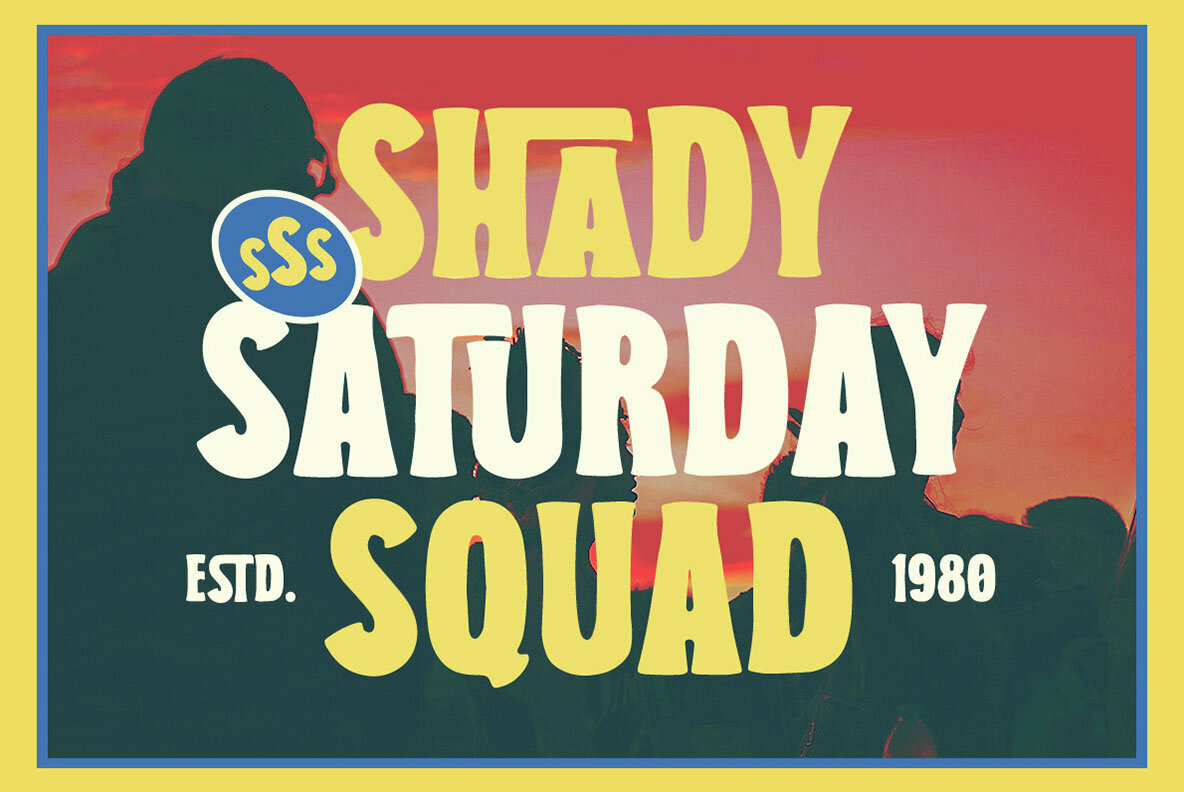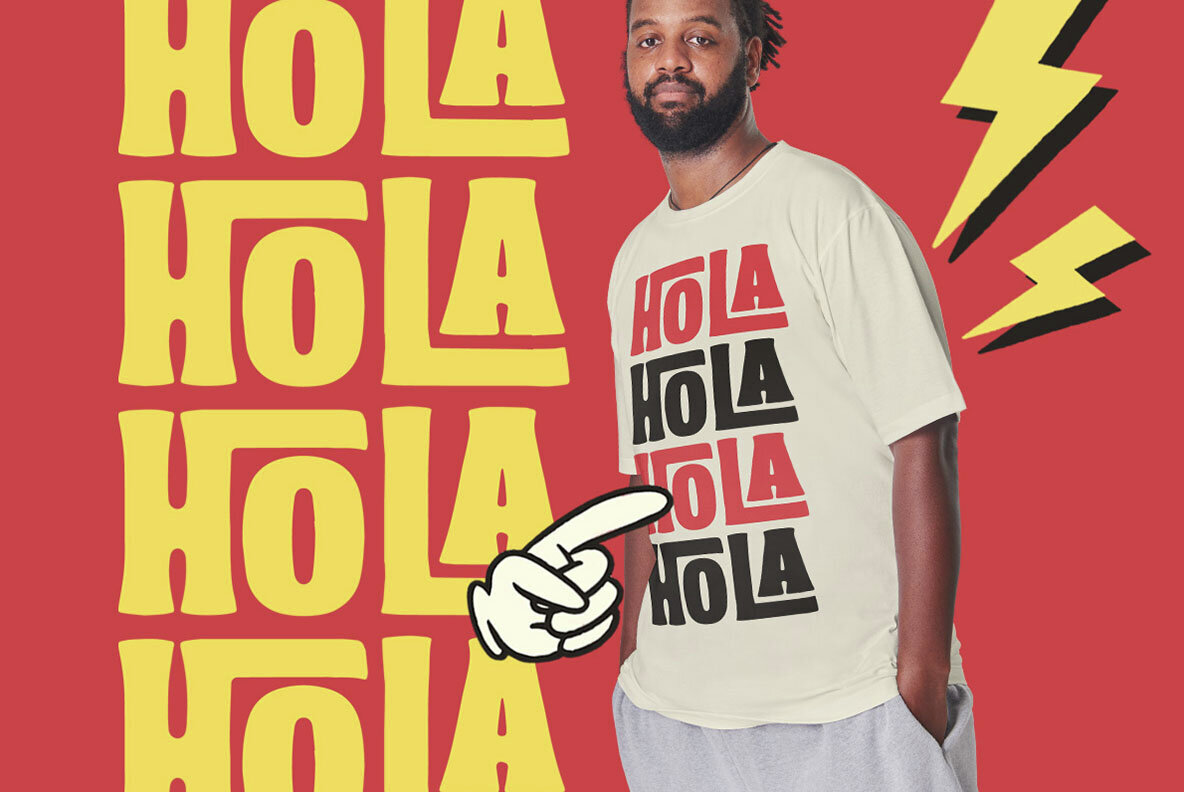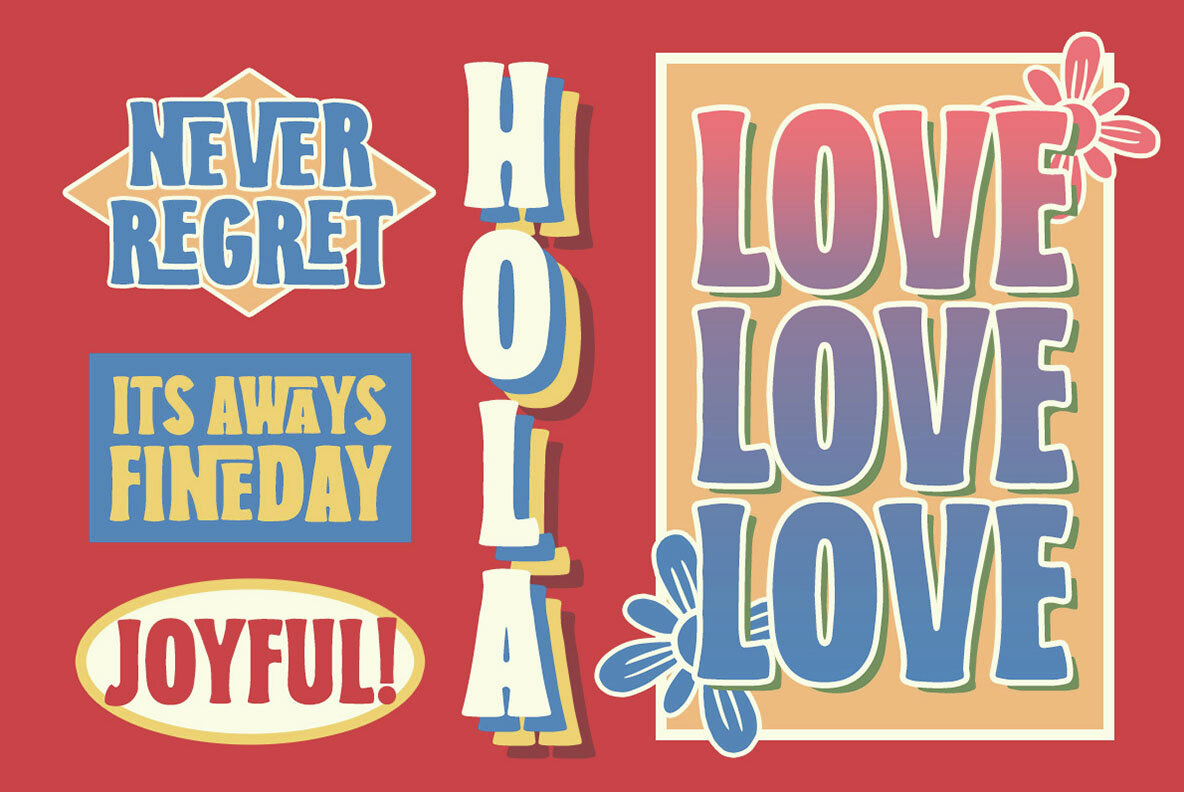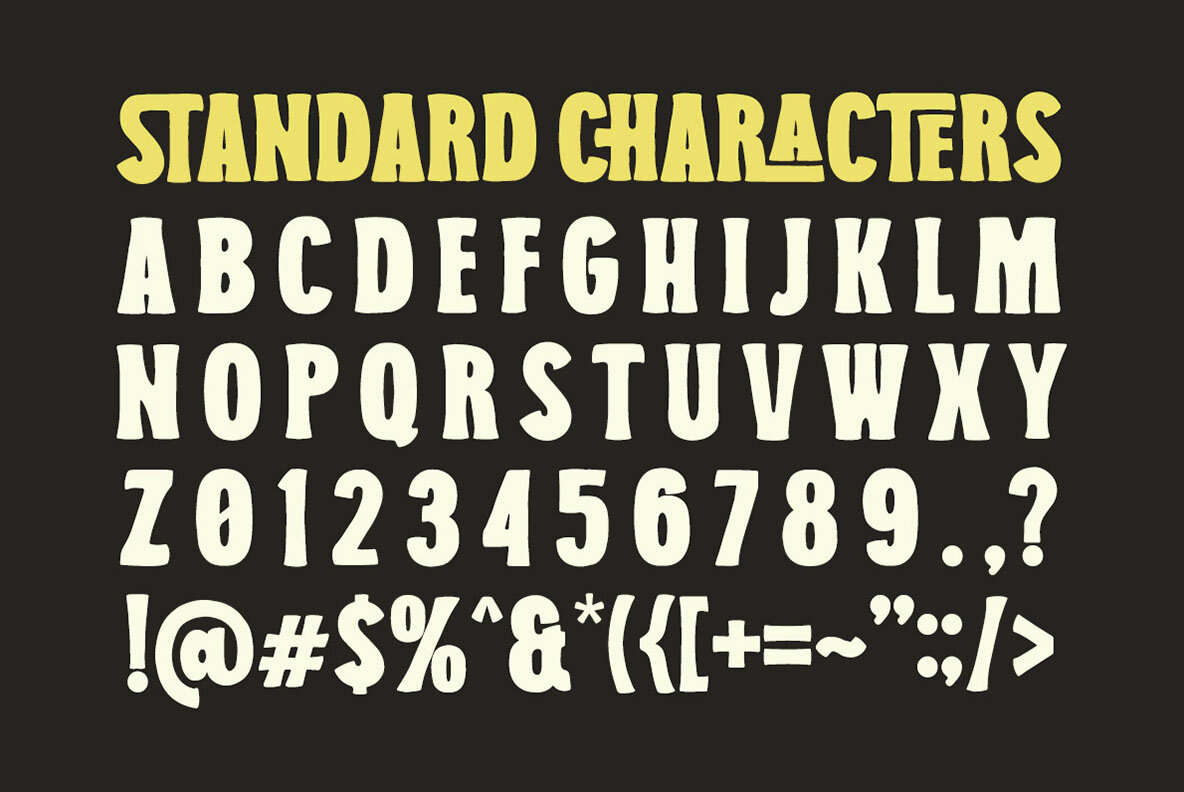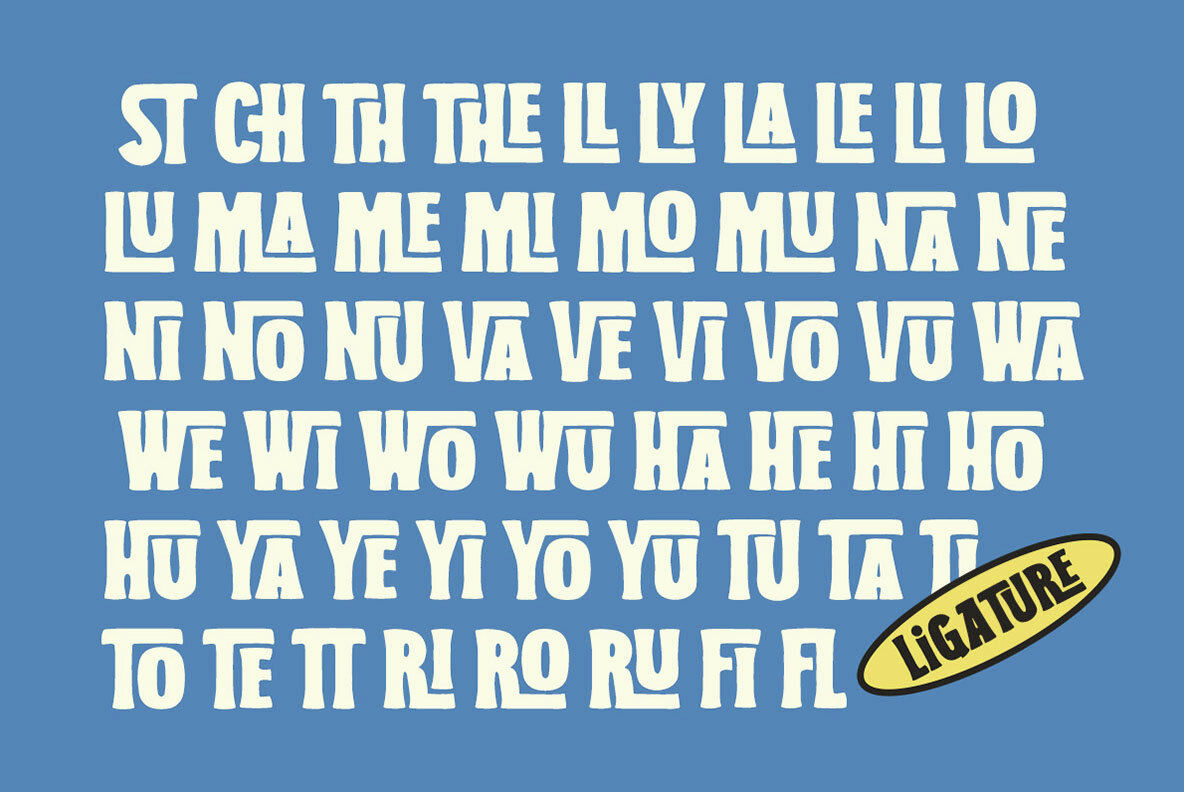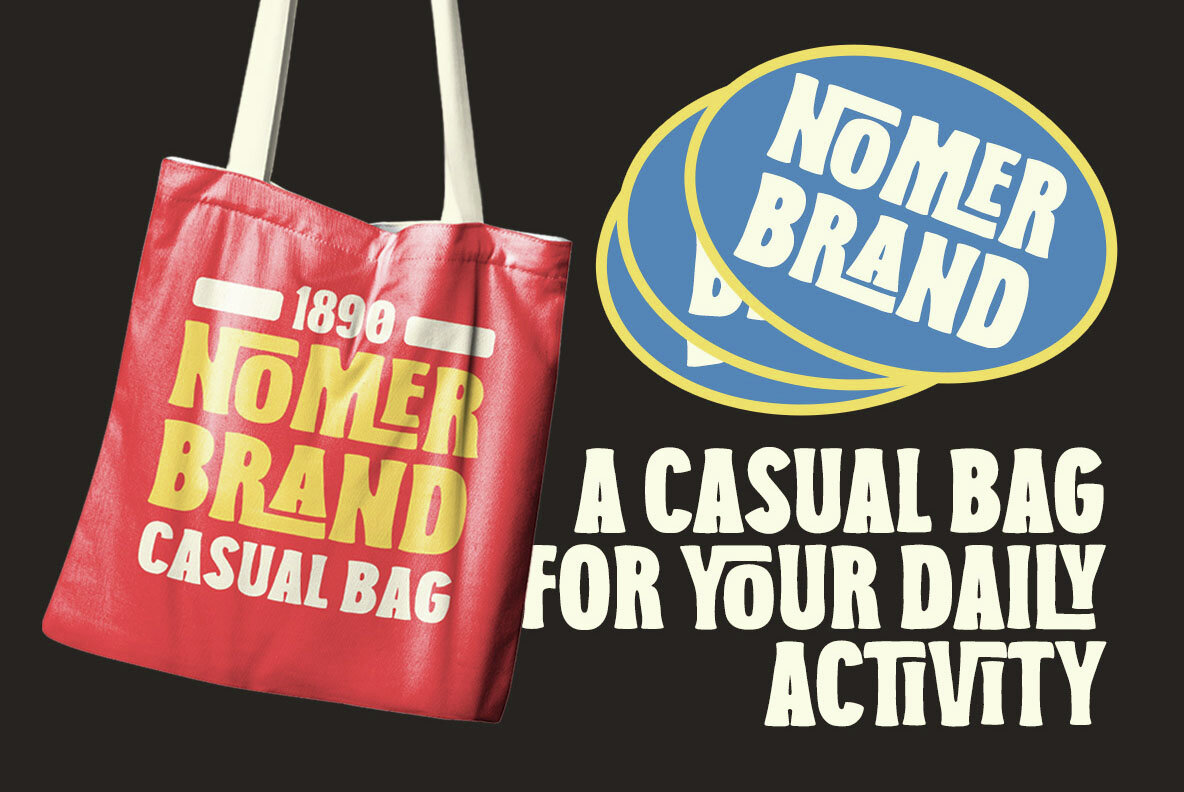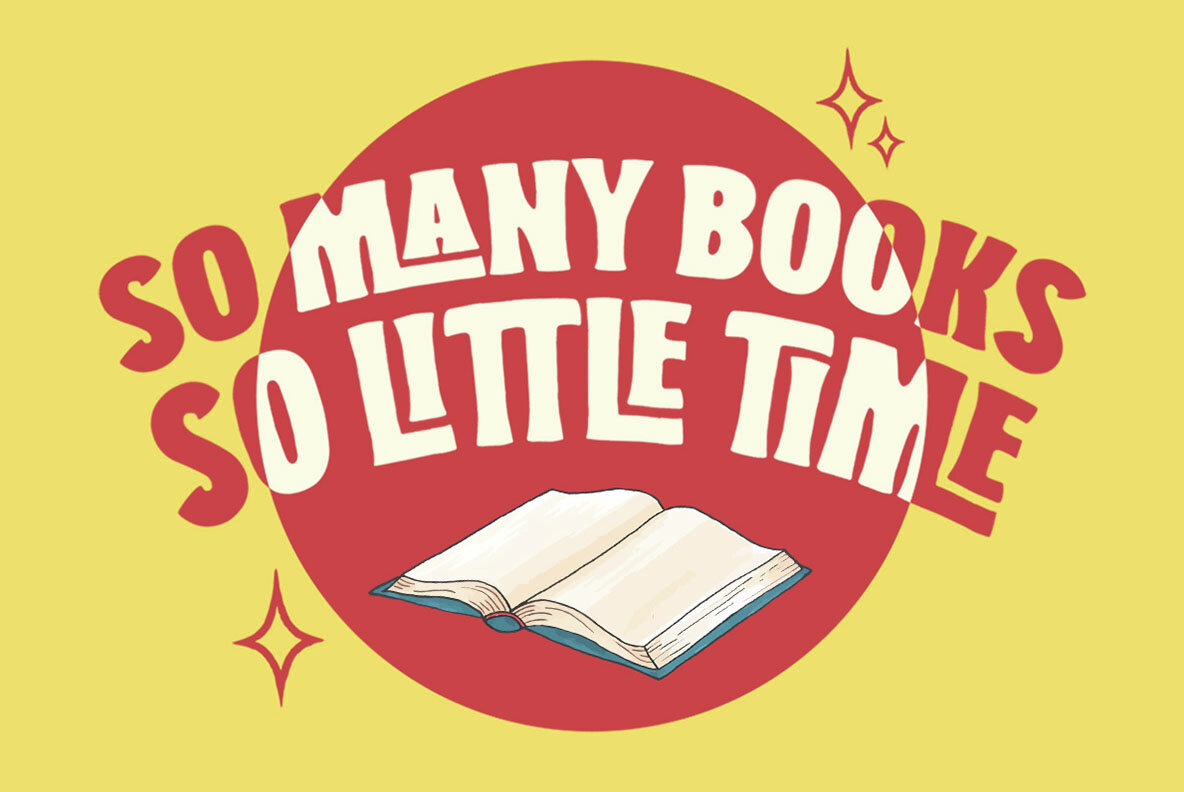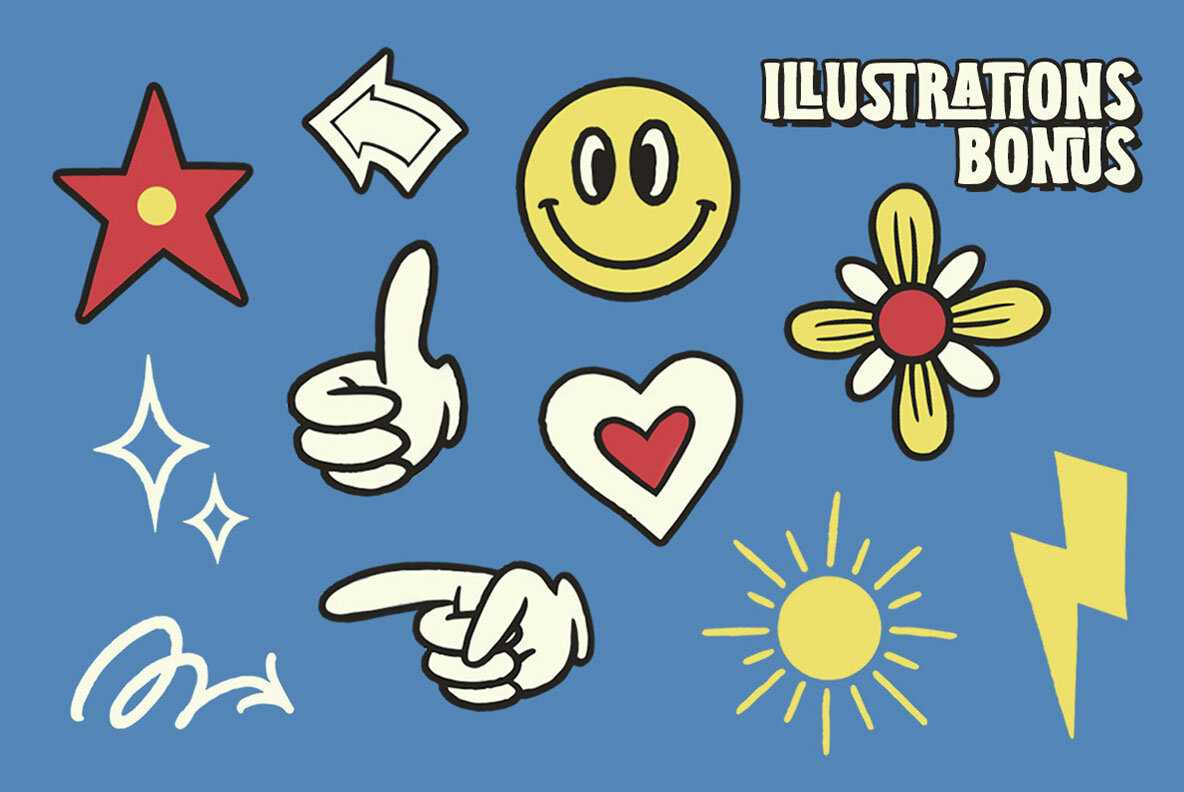
Random Broads Font
Random Broads is a ligature display font with playful looks. It comes with retro illustration bonus. This type of font perfectly made to be applied especially in storybook children or child theme which is need a standout font, and the other various formal forms such as invitations, labels, logos, magazines, books, greeting / wedding cards, packaging, fashion, make up, stationery, novels, labels or any type of advertising purpose. Features : We highly recommend using a program that supports OpenType features and Glyphs panels like many of Adobe apps and Corel Draw, so you can see and access all Glyph variations.